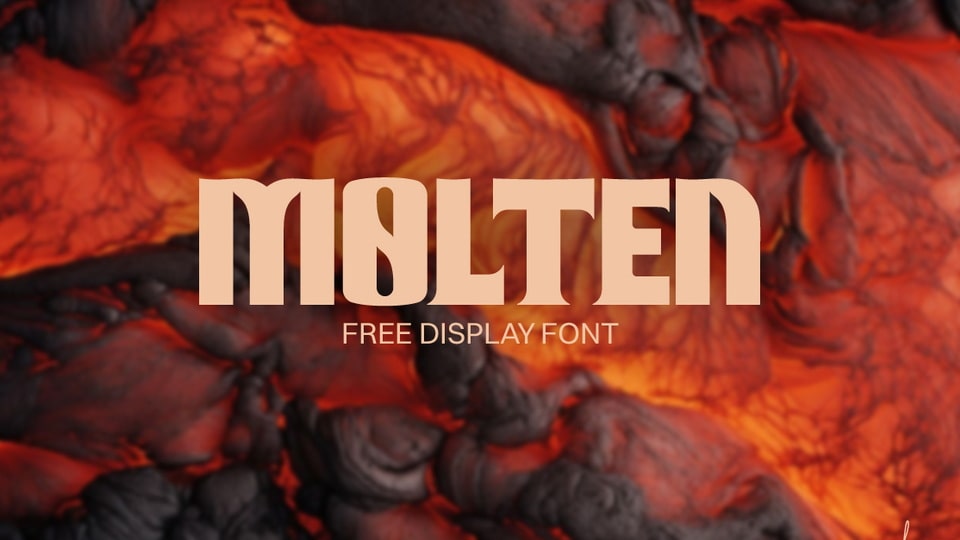
Download Molten font, an impactful display typeface started as a bold wordmark for a hot sauce brand. The result is a striking typeface that feels as dynamic and spicy as the brand itself.